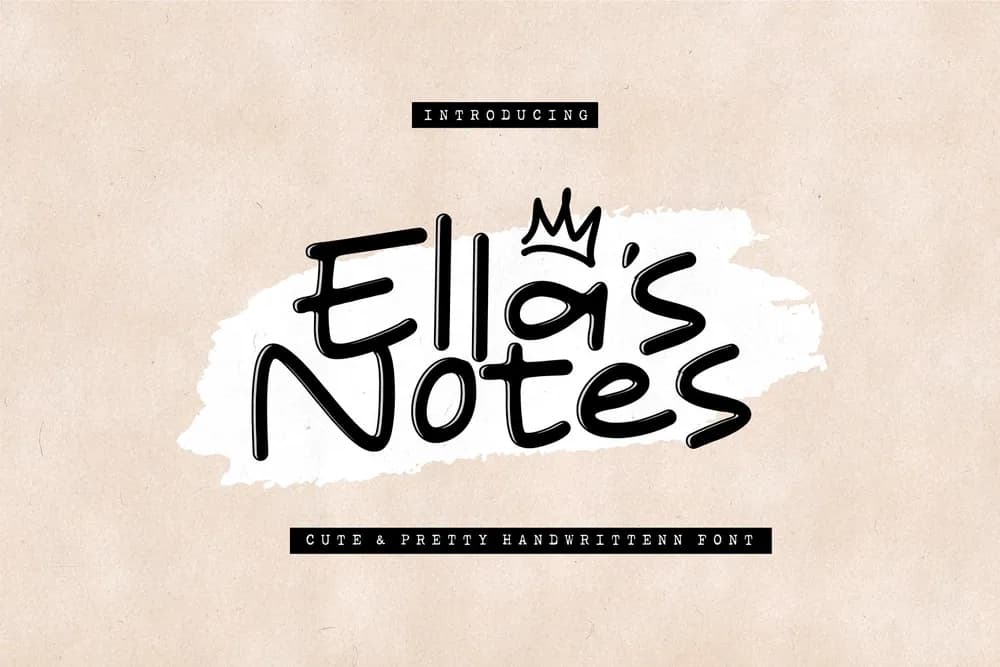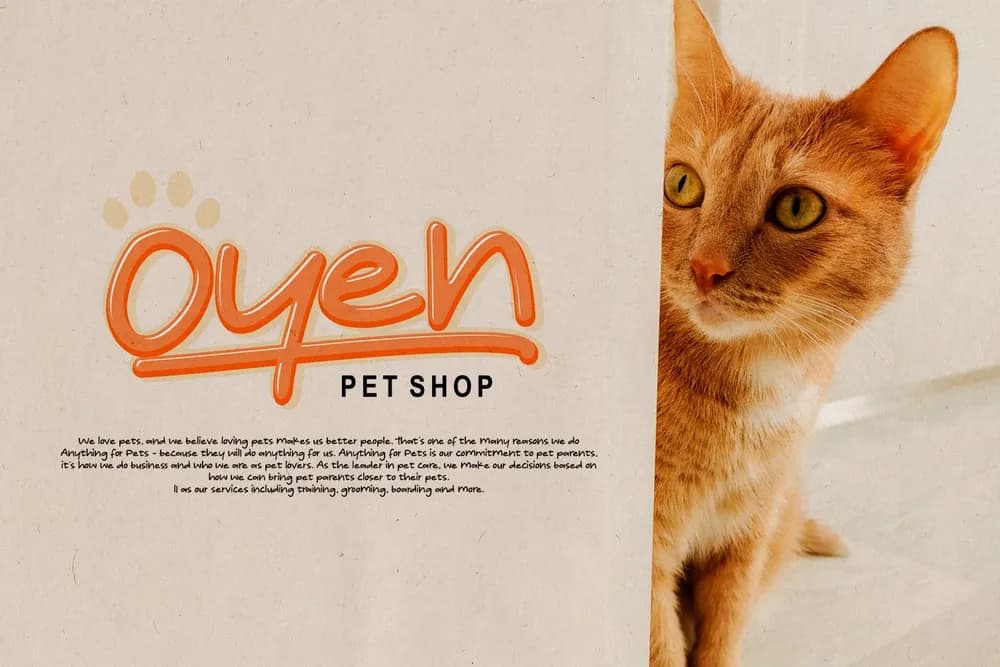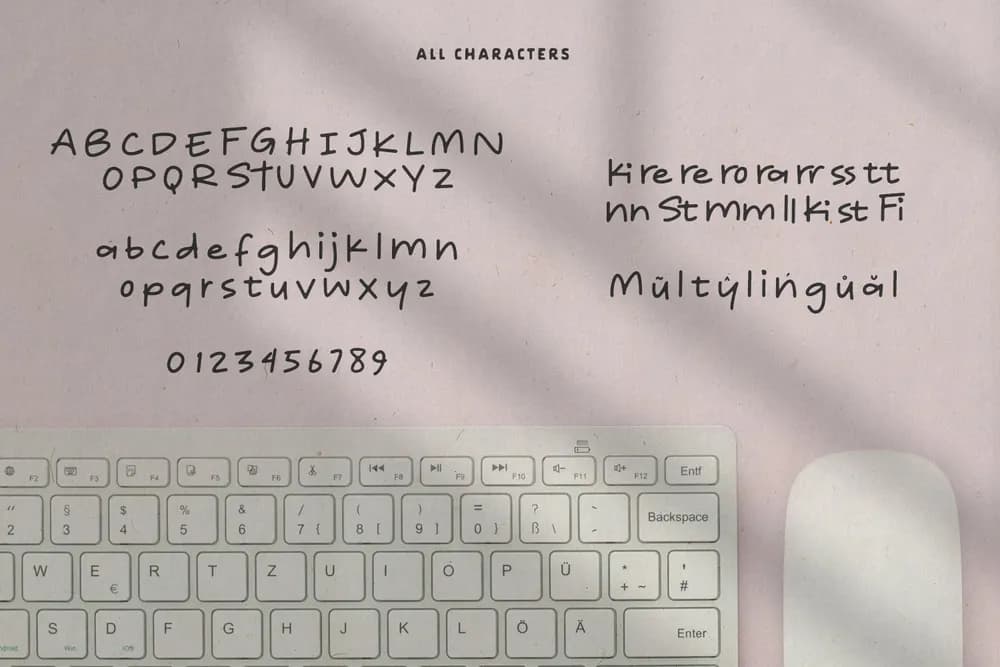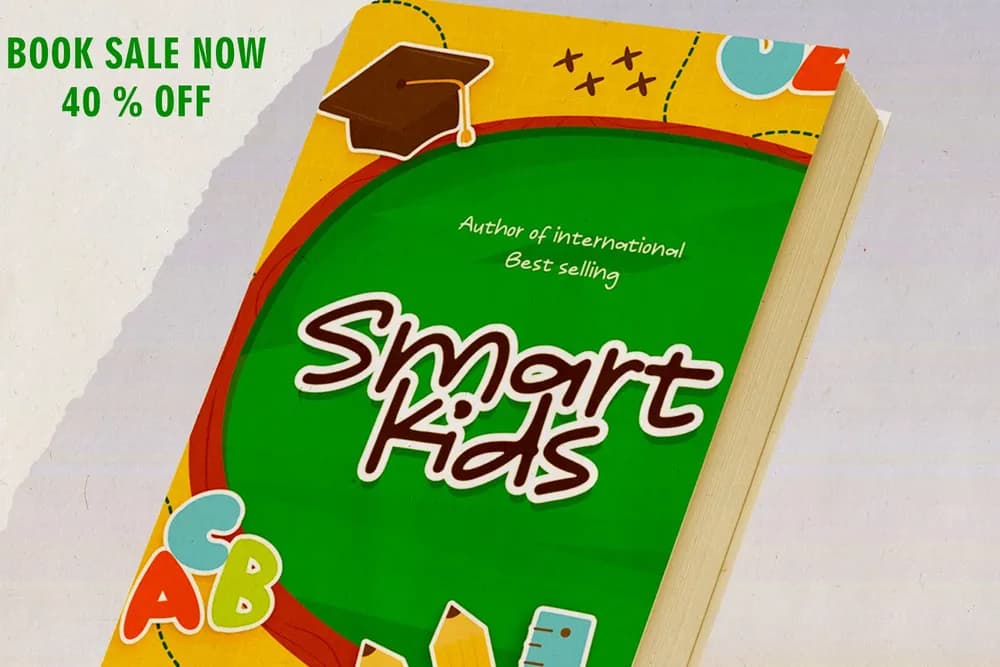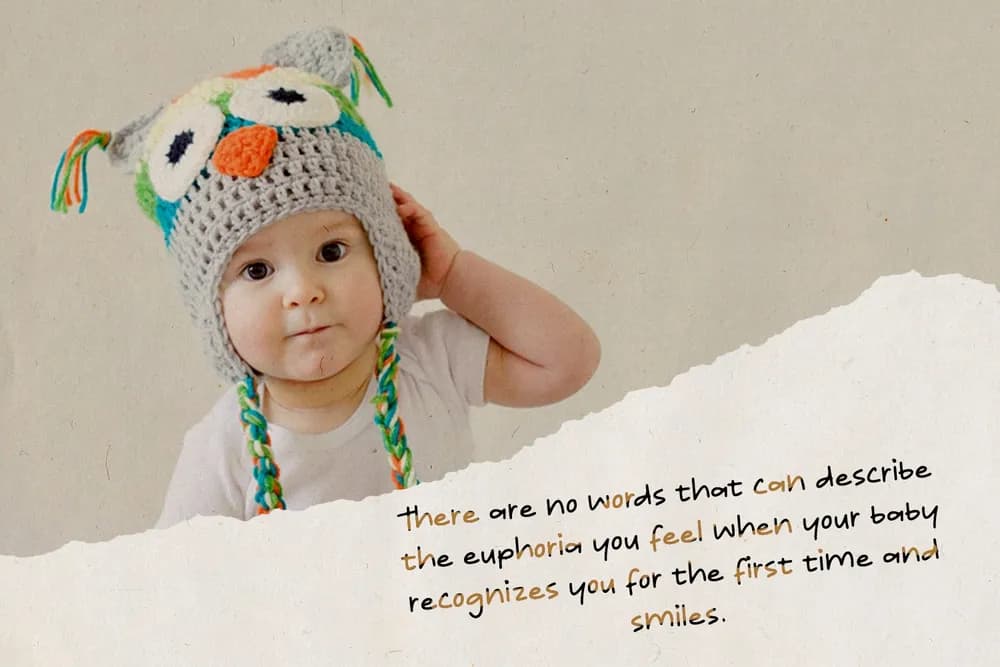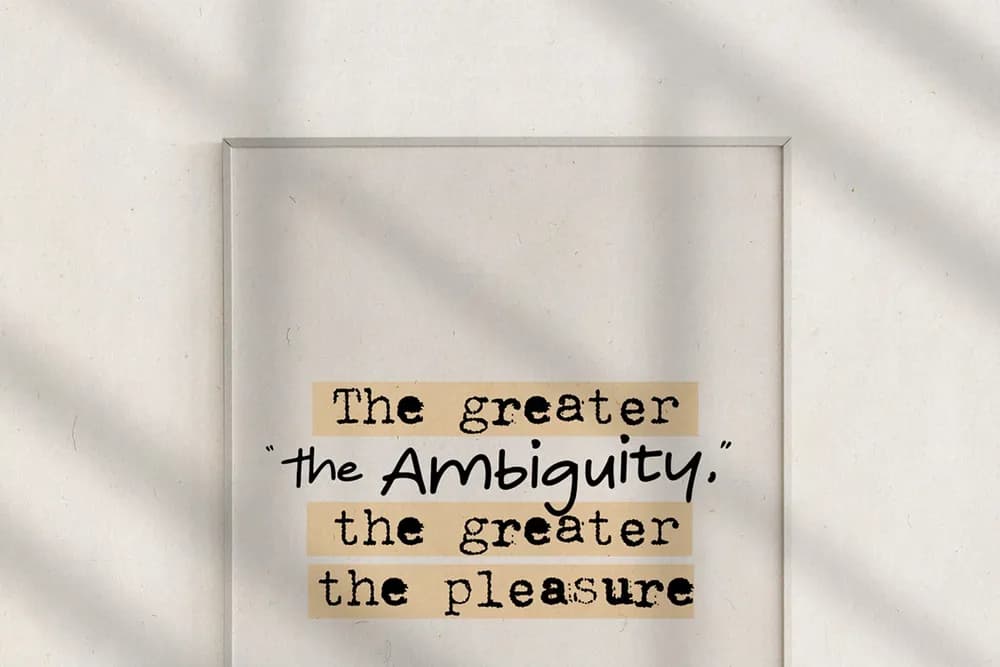
Ella's Notes is a playful and friendly font, perfect for adding a touch of fun to your designs. With its whimsical letterforms and bubbly personality, this font is perfect for creating inviting social media graphics, childrenโs books, or anything that needs a lighthearted touch. Bring your designs to life with this charming and approachable font. ๐ ๐๐๐ญ๐ฎ๐ซ๐๐ฌ : โ Regular Font โ Style Font โ Uppercase & lowercase letters โ Regular And Bold Fonmt โ Multilingual support ๐ ๐จ๐ซ๐ฆ๐๐ญ : OTF, TTF, and WOFF.